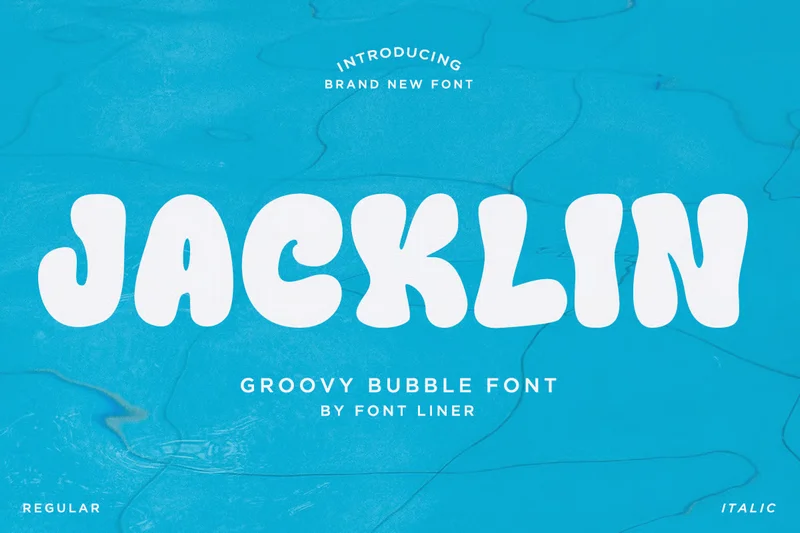
Jacklin – Groovy Bubble Font
Jacklin is a groovy font inspired by the classic bubble style, featuring rounded edges and soft curves that add both a playful and sophisticated touch to any design. With its fun yet elegant vibe, Jacklin is perfect for posters, branding, packaging, and bold headlines. This versatile font family comes with Regular and Italic styles, includes multilingual support, and makes every project stand out effortlessly.